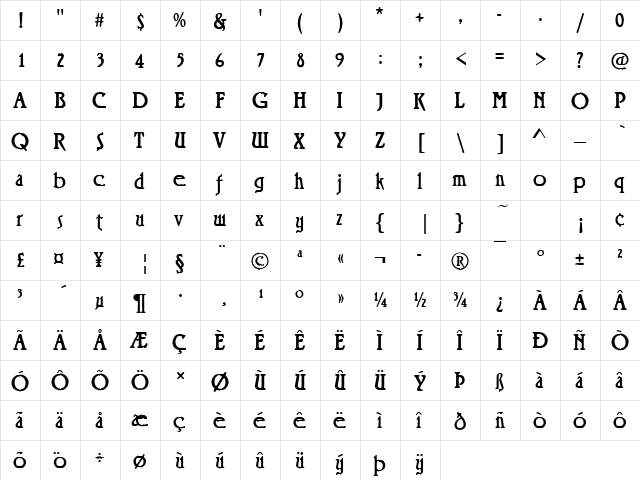
URWRheaAntD Regular
Design Context for URWRheaAntD Typeface
URWRheaAntD offers clean, dependable letterforms without strong stylistic allegiance, making it a practical choice for designers who need flexibility.